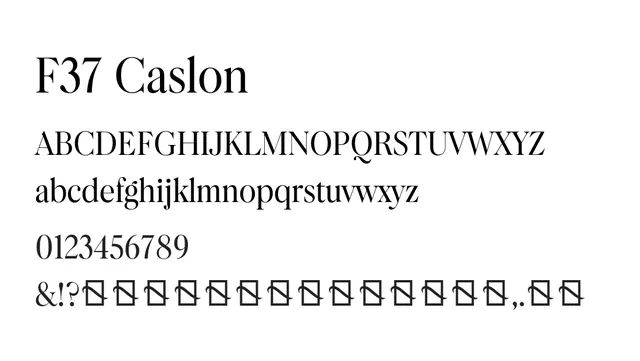
F37 Caslon
F37 Caslon, elegant, classical
Display-weight transitional serif with pronounced serifs and strong character, balancing classical elegance with contemporary sophistication.
Excellent for display use, headlines, and luxury branding. The heavier weight commands attention and works at larger sizes for covers, posters, and premium editorial. Maintains elegant proportions while delivering visual impact.
Pair with F37 Caslon Text at smaller sizes for editorial systems, or with a clean sans like Drago for modern luxury branding.